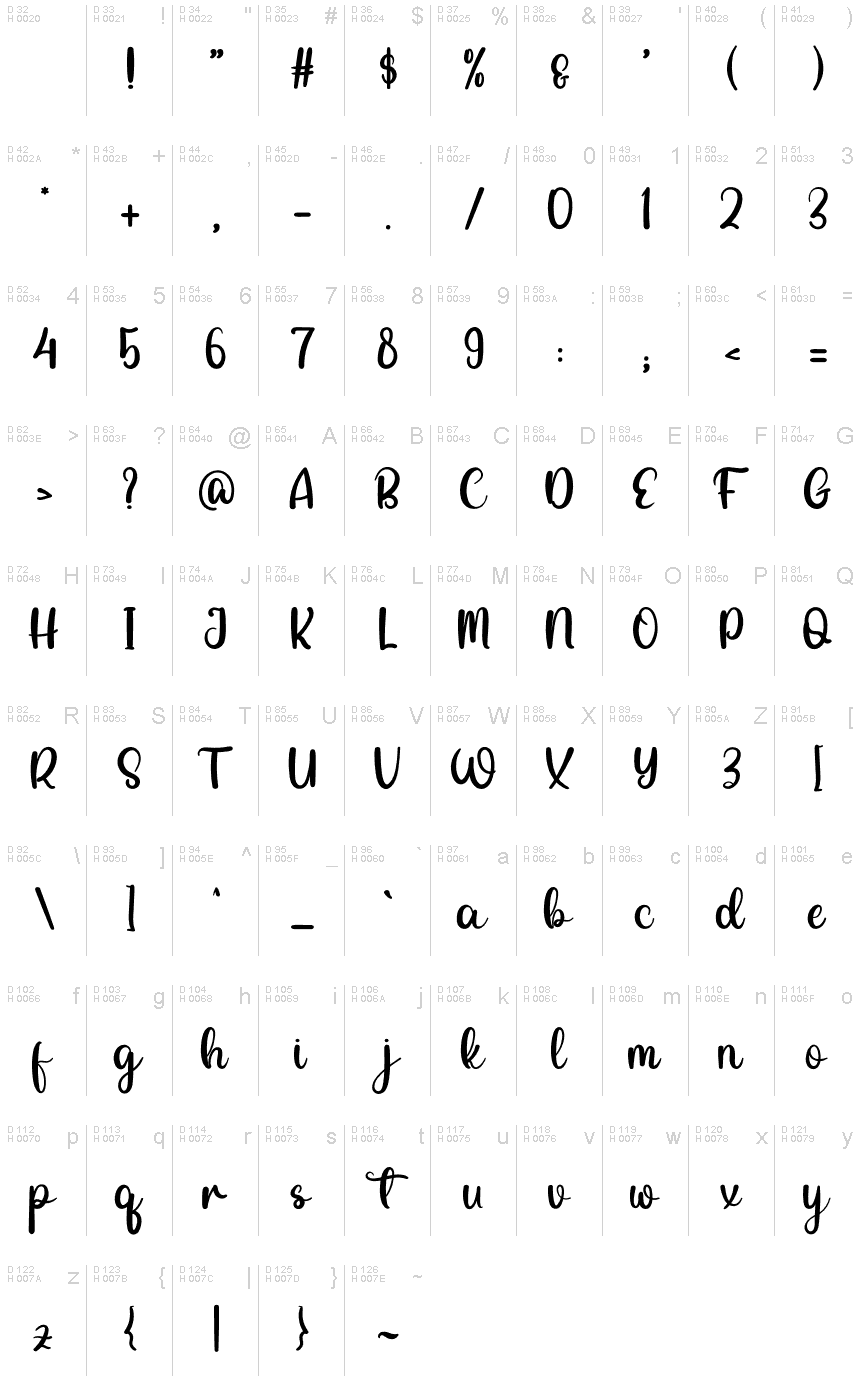
Coffeehouse
Coffeehouse is a handwritten font designed by Inermedia Studio, perfect for creating a casual and relaxed atmosphere. Suitable for projects such as greeting cards, scrapbooking, product labels and wedding invitations.